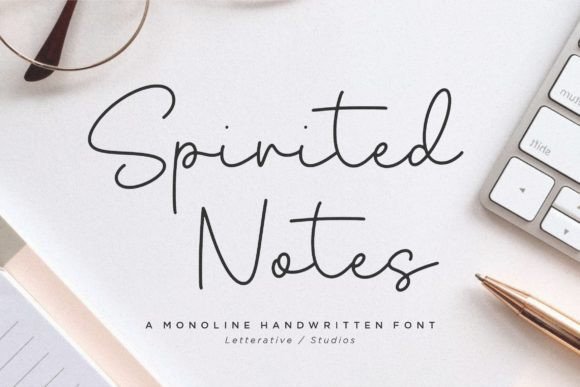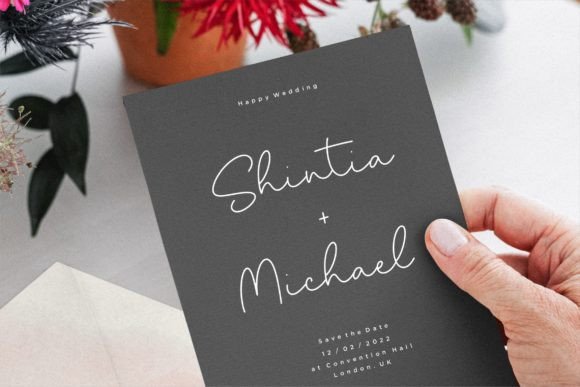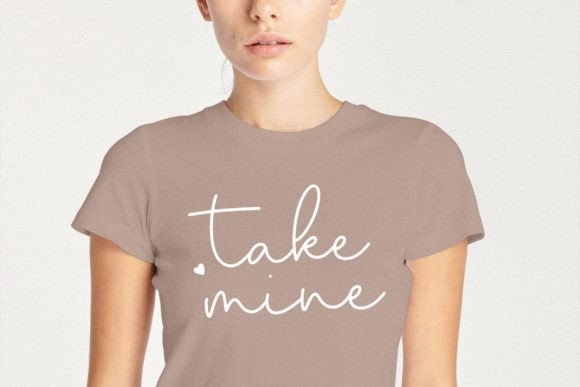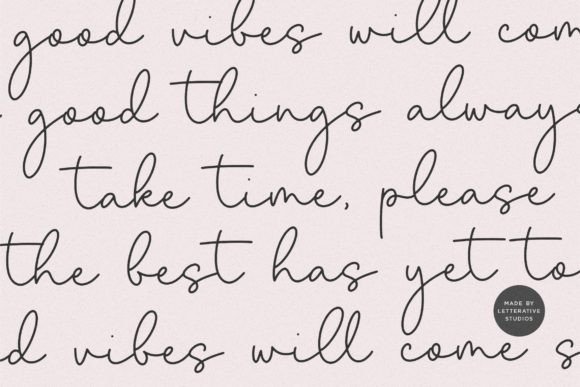
Add a modern and clean touch with the Spirited Notes font. This monoline handwritten script is perfect for a wide range of creative projects. Whether you’re working on crafts, digital designs, presentations, or making greeting cards, this font offers a sleek and versatile style.
The Spirited Notes font is highly adaptable and ideal for many design applications. Use it for logos, posters, invitations, social media content, and more. Its minimalist and stylish appearance adds personality and elegance to your work.
Each character is crafted with smooth, consistent strokes that create a polished and sophisticated look. The font balances simplicity with readability, making it suitable for headlines, quotes, logos, and decorative text.
Despite its minimalist design, the Spirited Notes font remains highly readable at various sizes. Whether used for bold titles or subtle accents, it adapts perfectly. Its flexibility makes it a great choice for many creative projects.
Using this font will help your designs stand out with a clean and modern look. If you want your work to look sleek and memorable, the Spirited Notesfont is an excellent choice.
In summary, the Spirited Notesfont fits many creative needs. From crafts and digital designs to presentations and greeting cards, it brings style and simplicity. Download it today and create stunning, elegant designs with a modern monoline script.